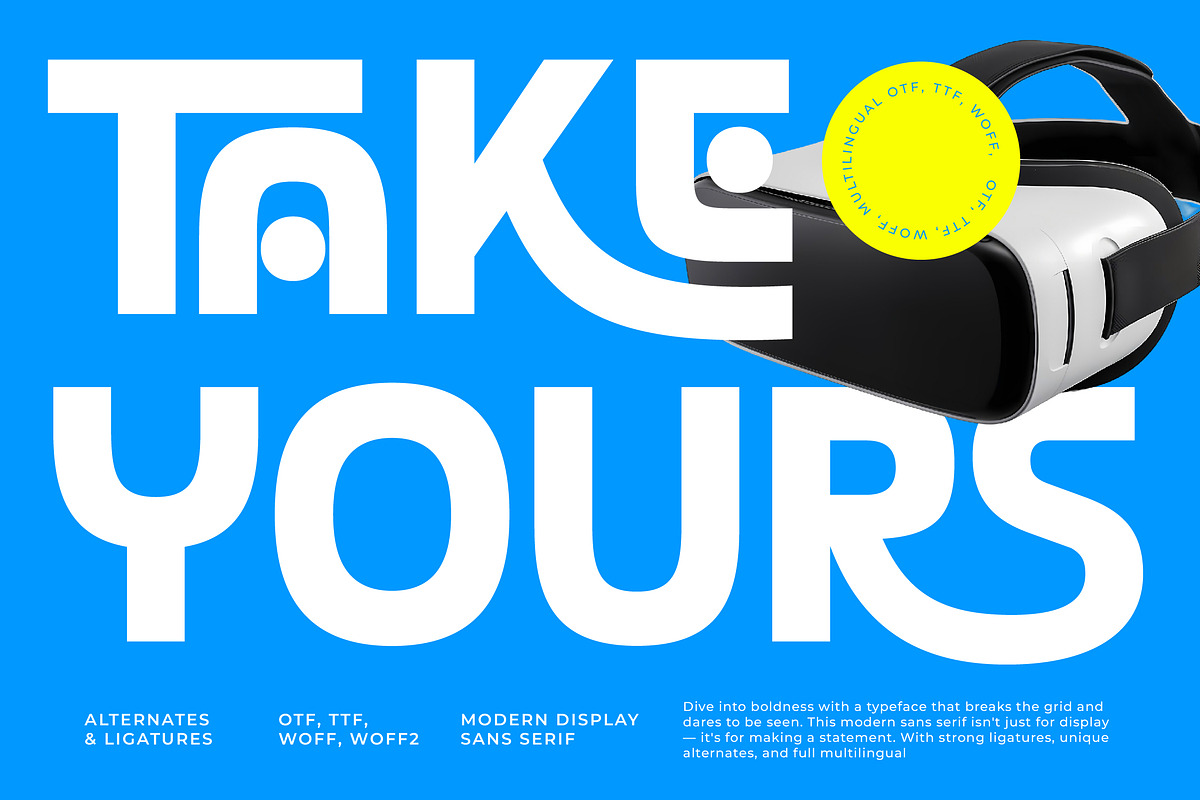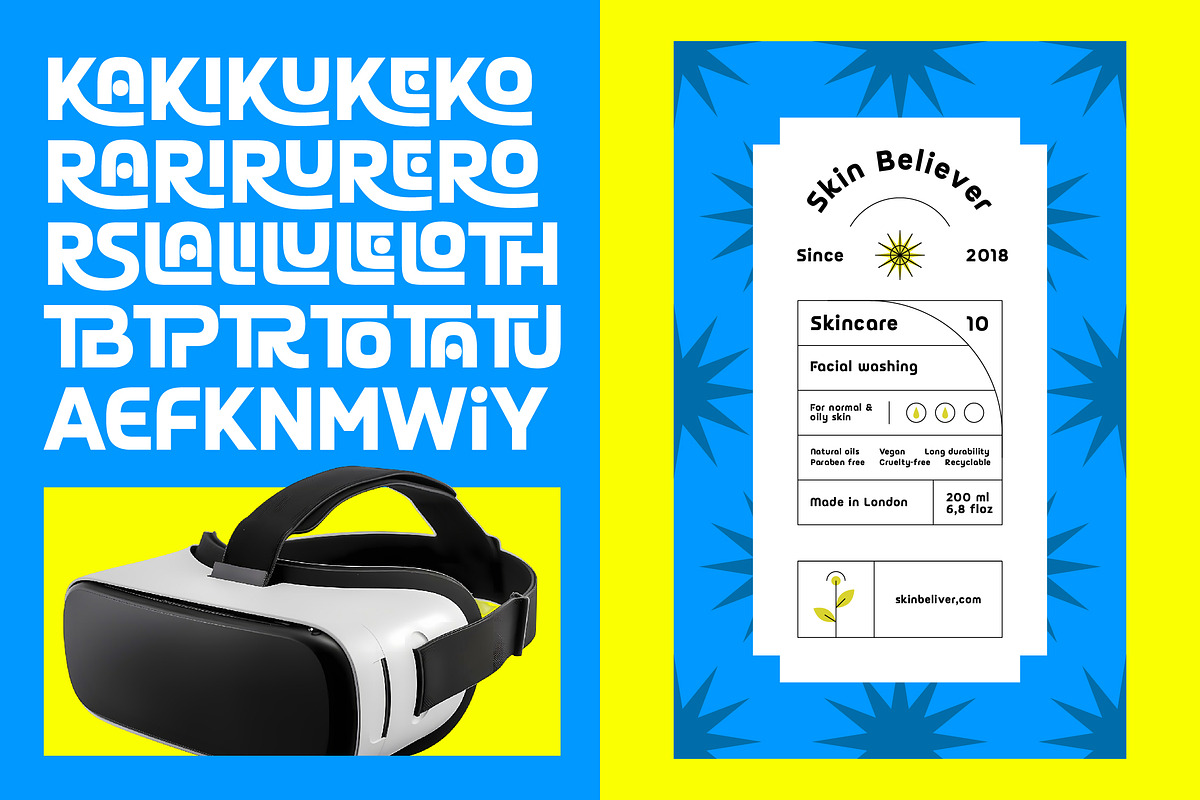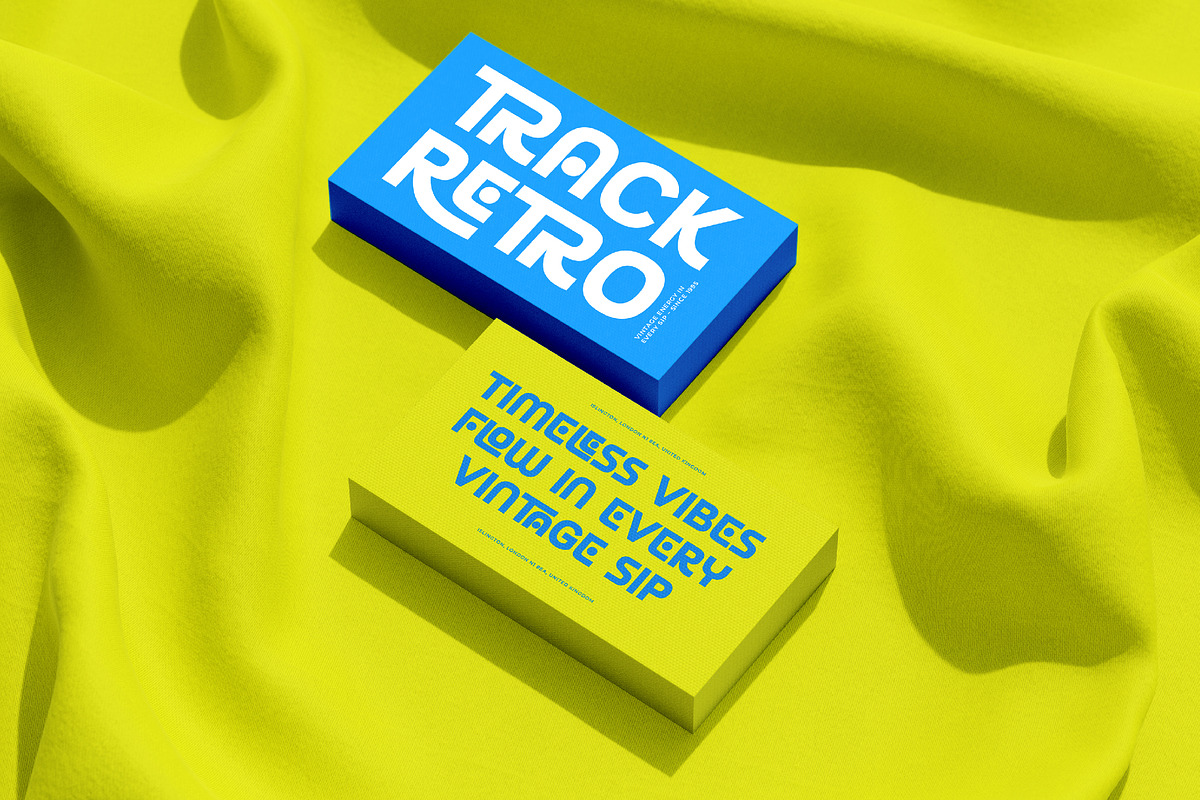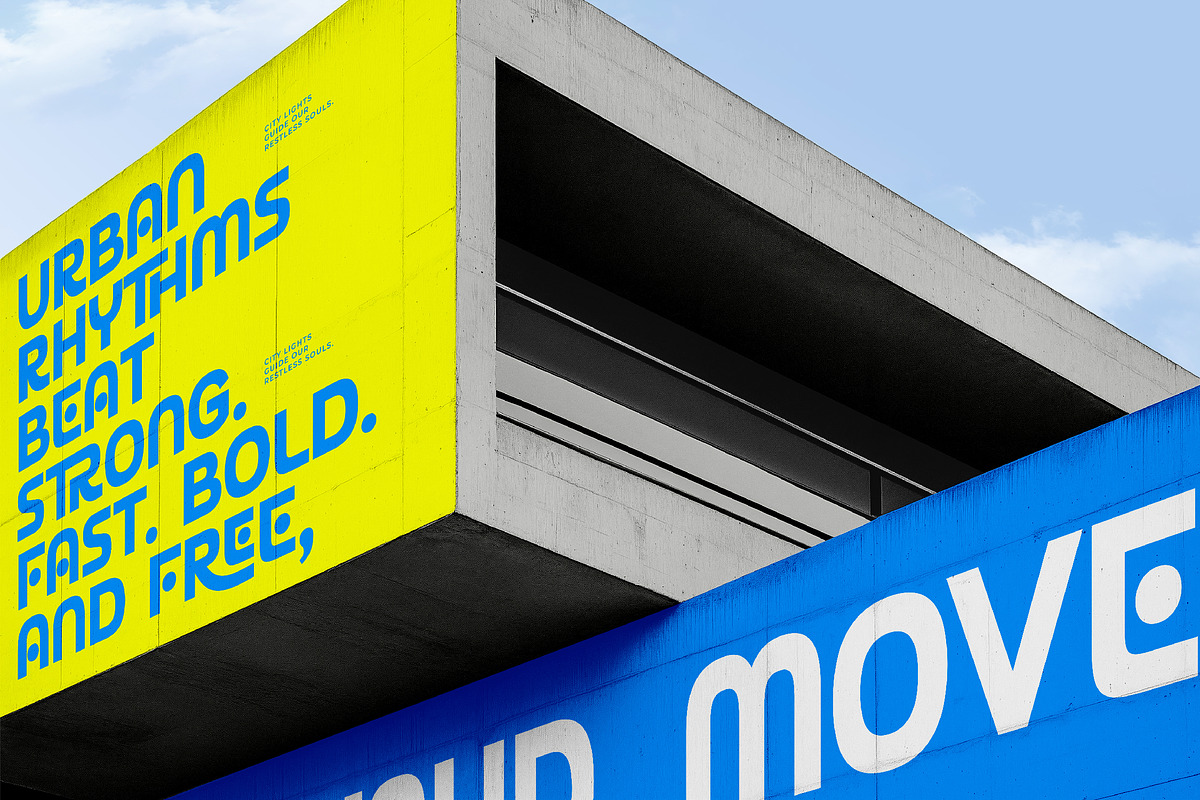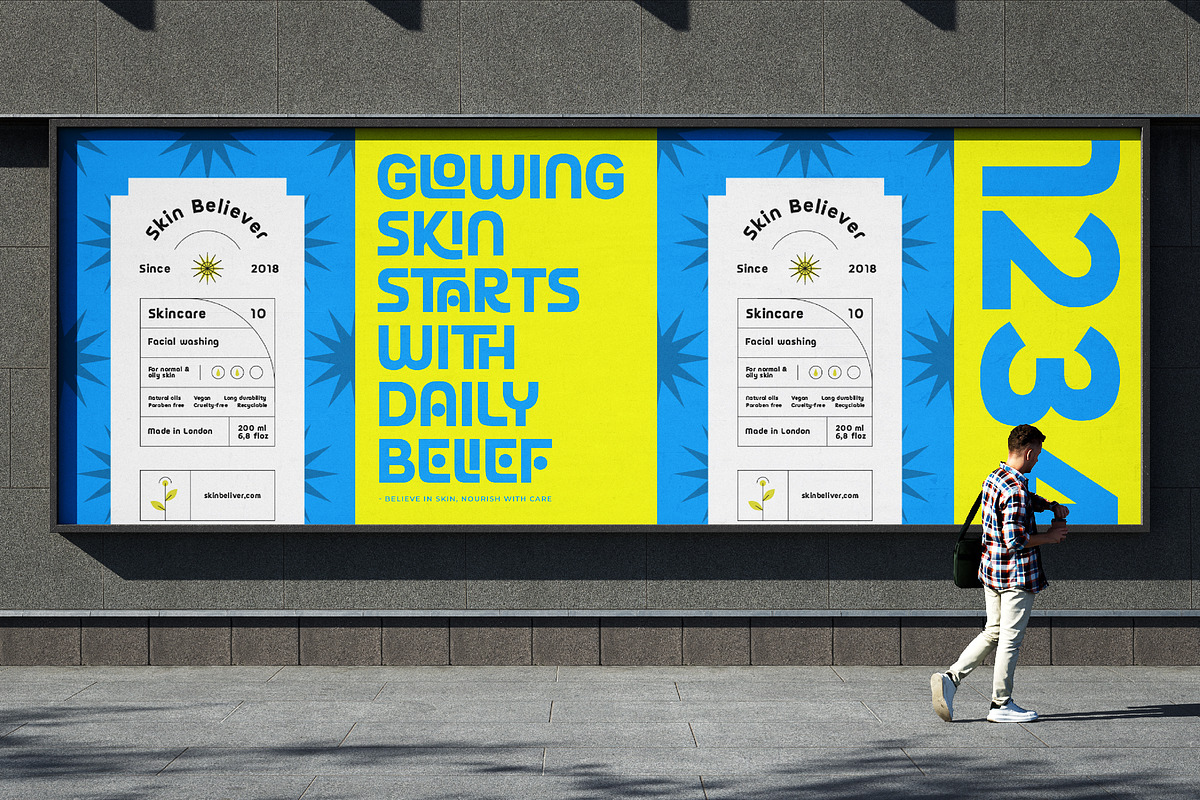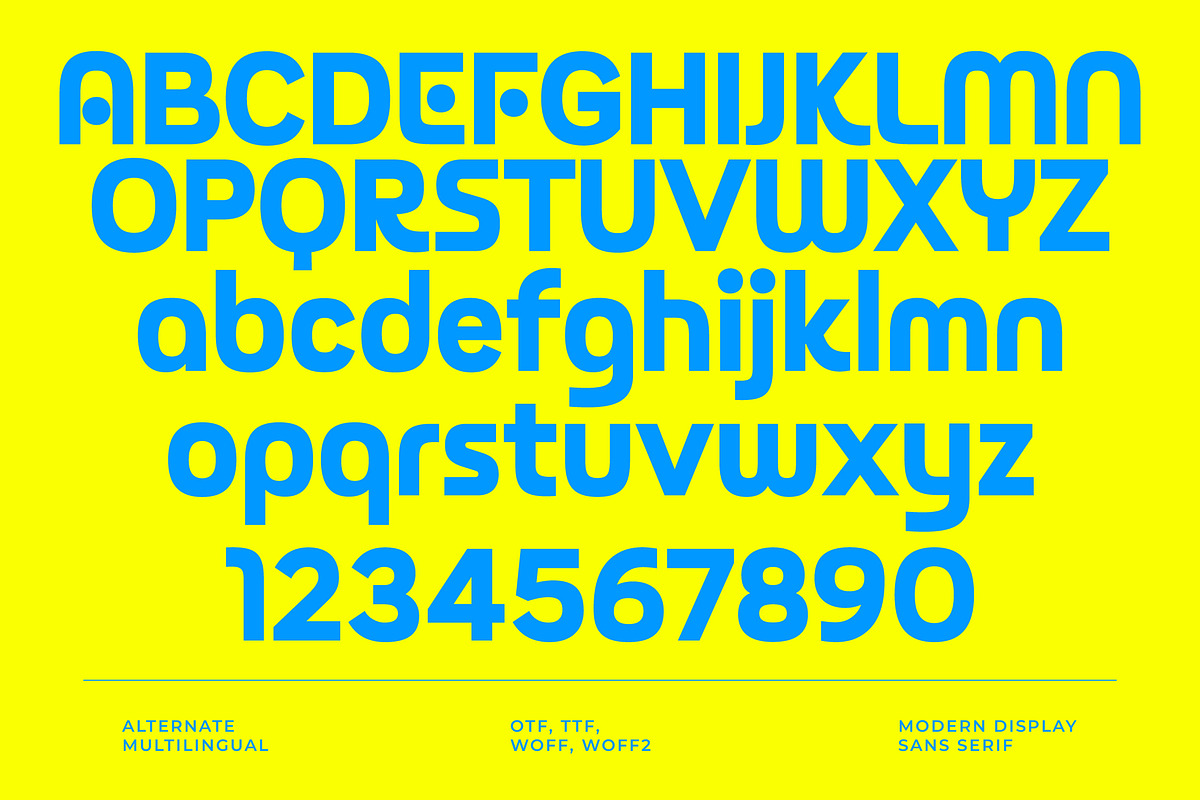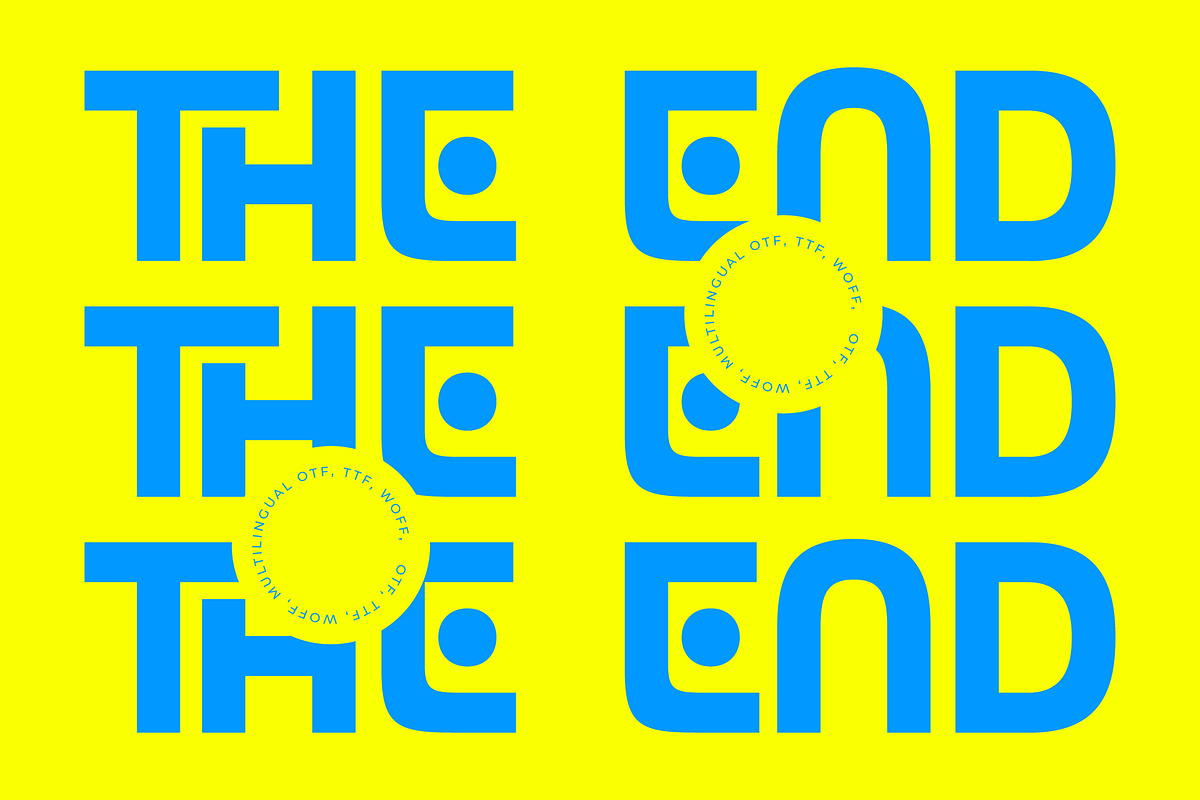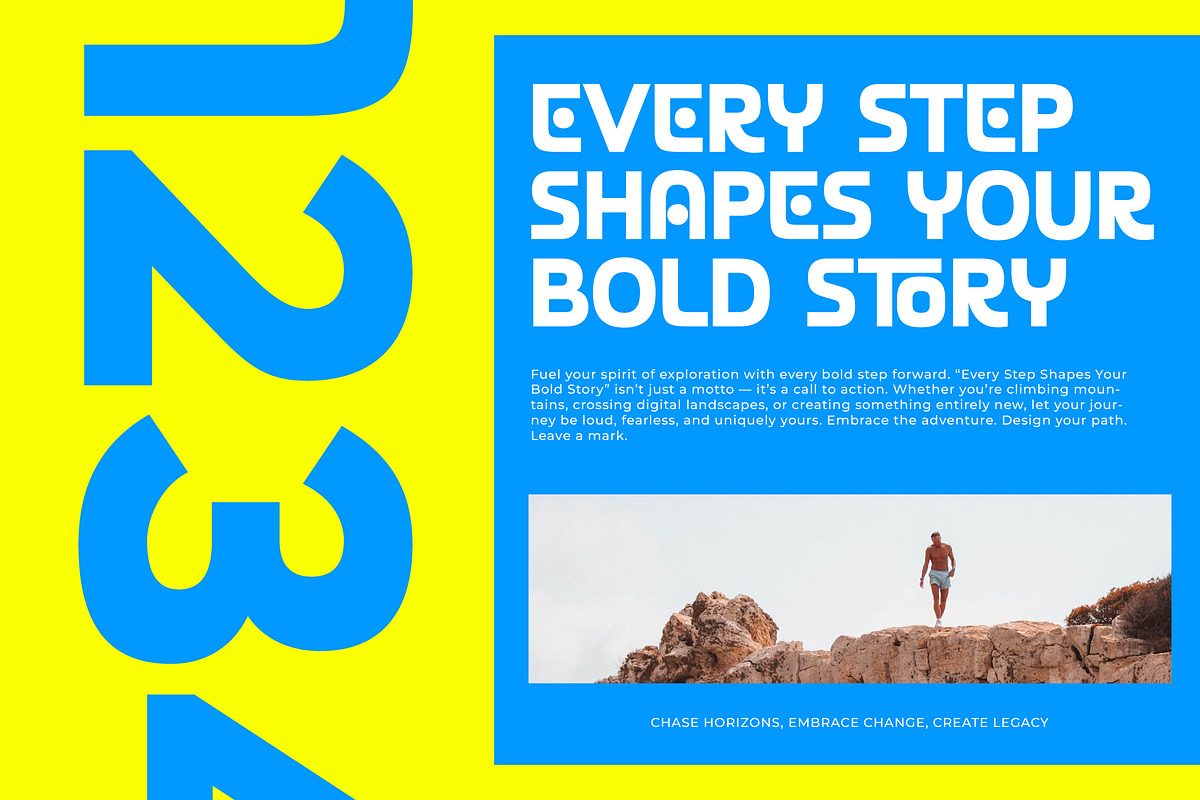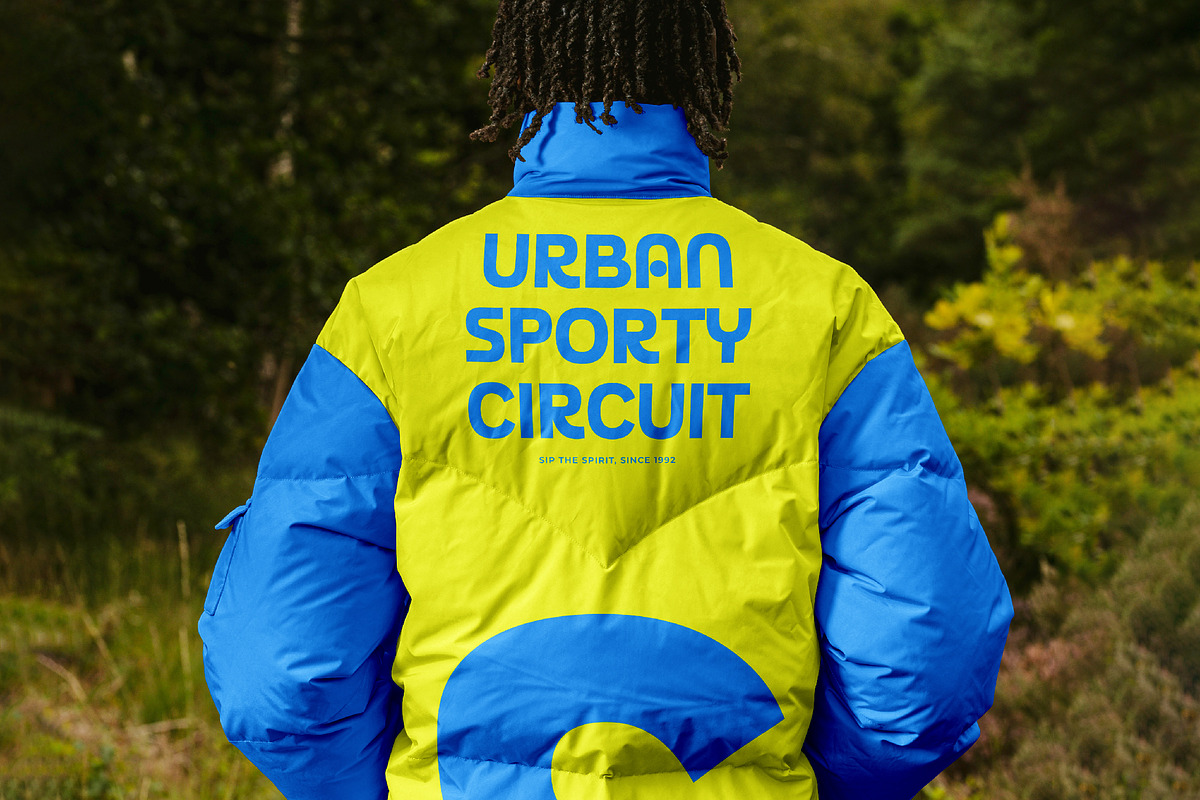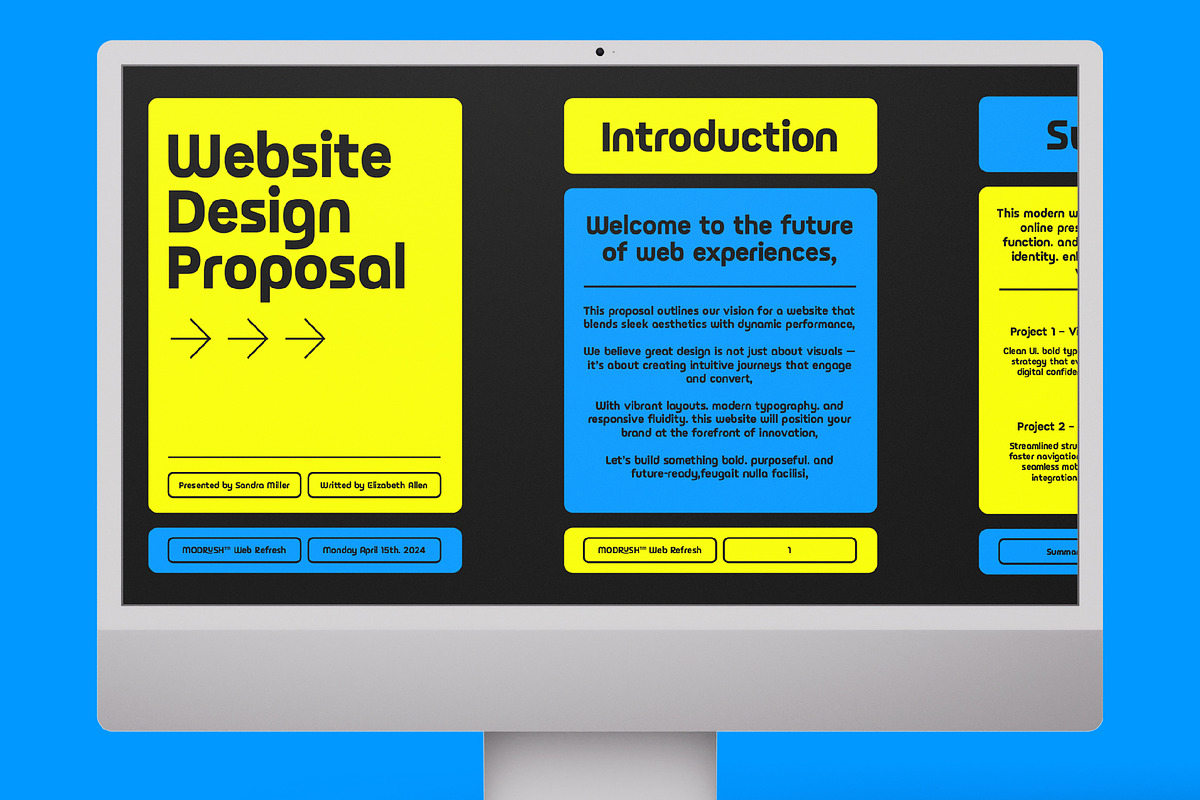
Take Yours Modern Display Sans Serif
Take Yours Sans Serif Display Font
Take Yours display font is a unique, modern luxury font with a luxury, elegant, aesthetic, and geometric style. It is a display font perfect for branding projects, logos, social media posts, product packaging, labels, etc.